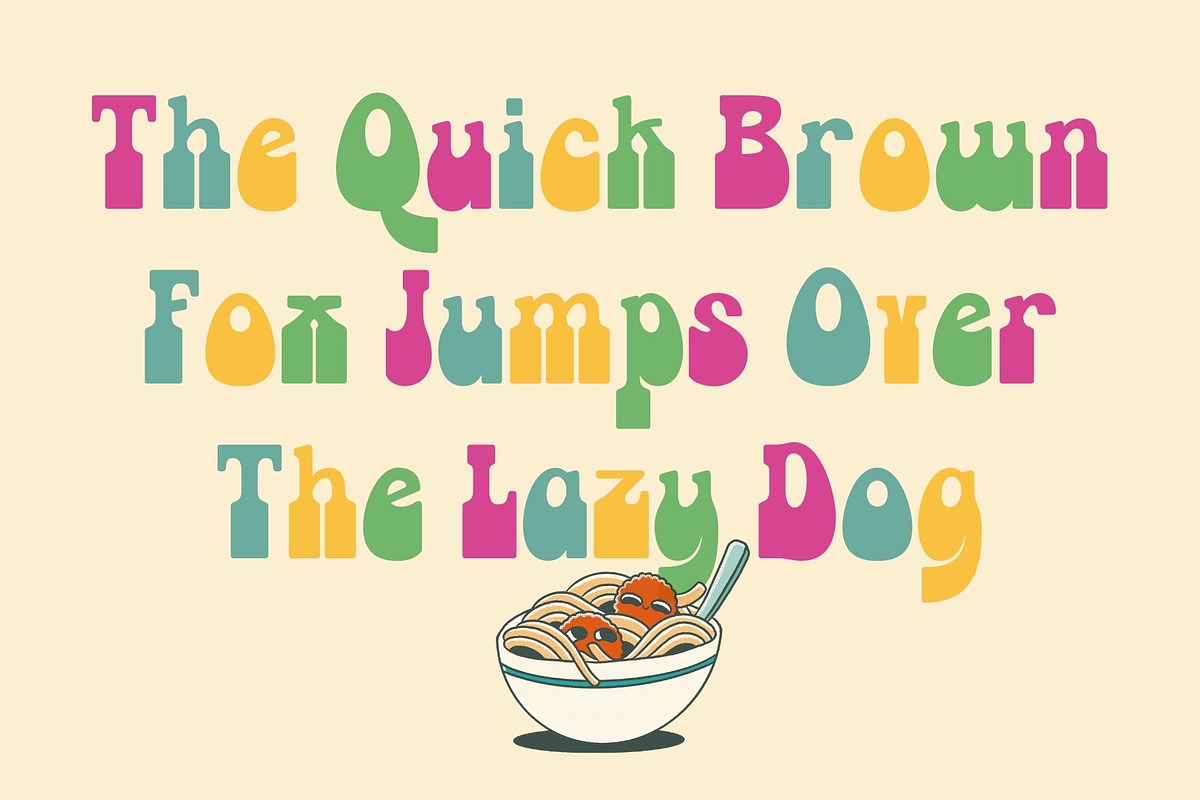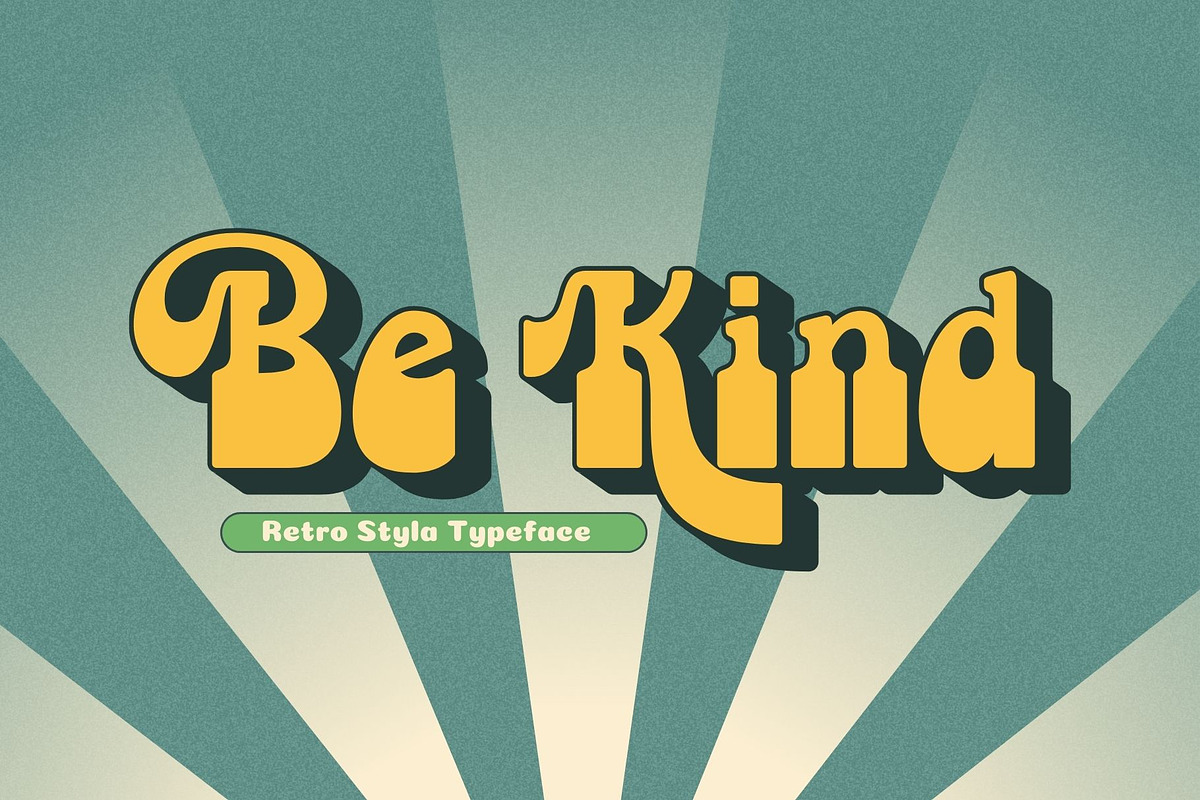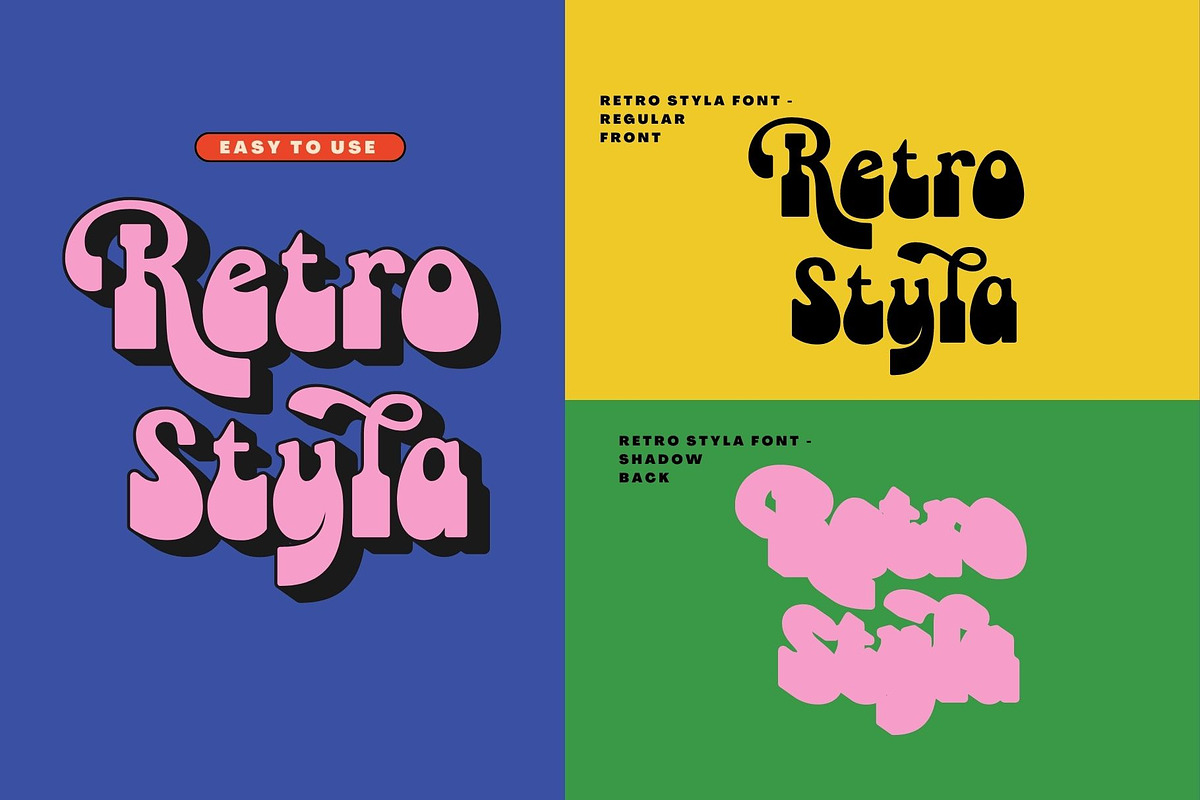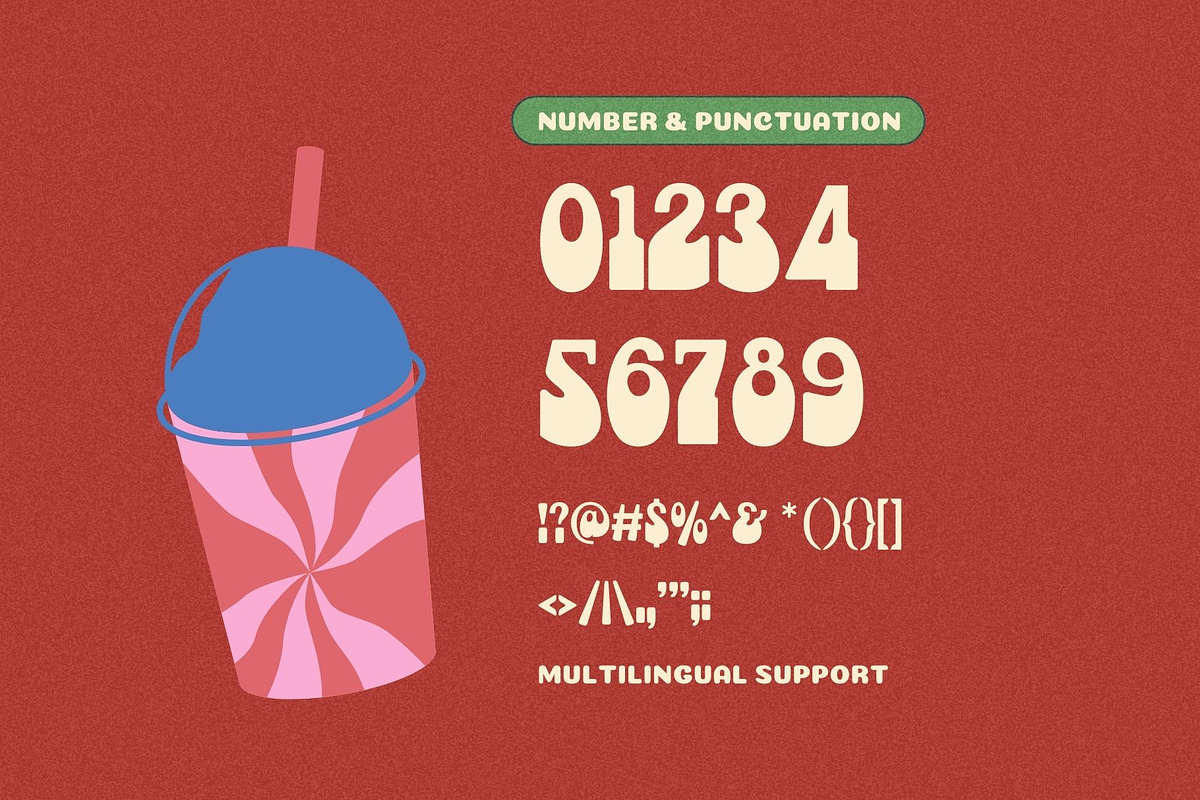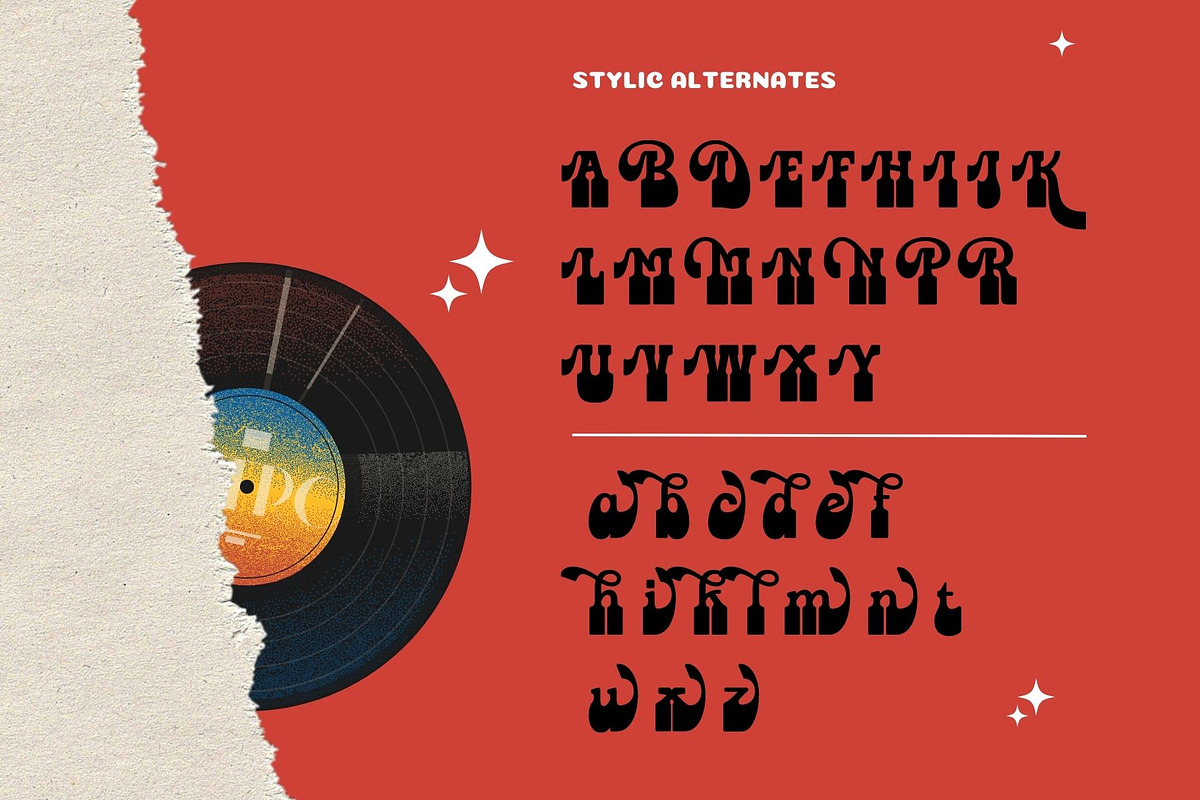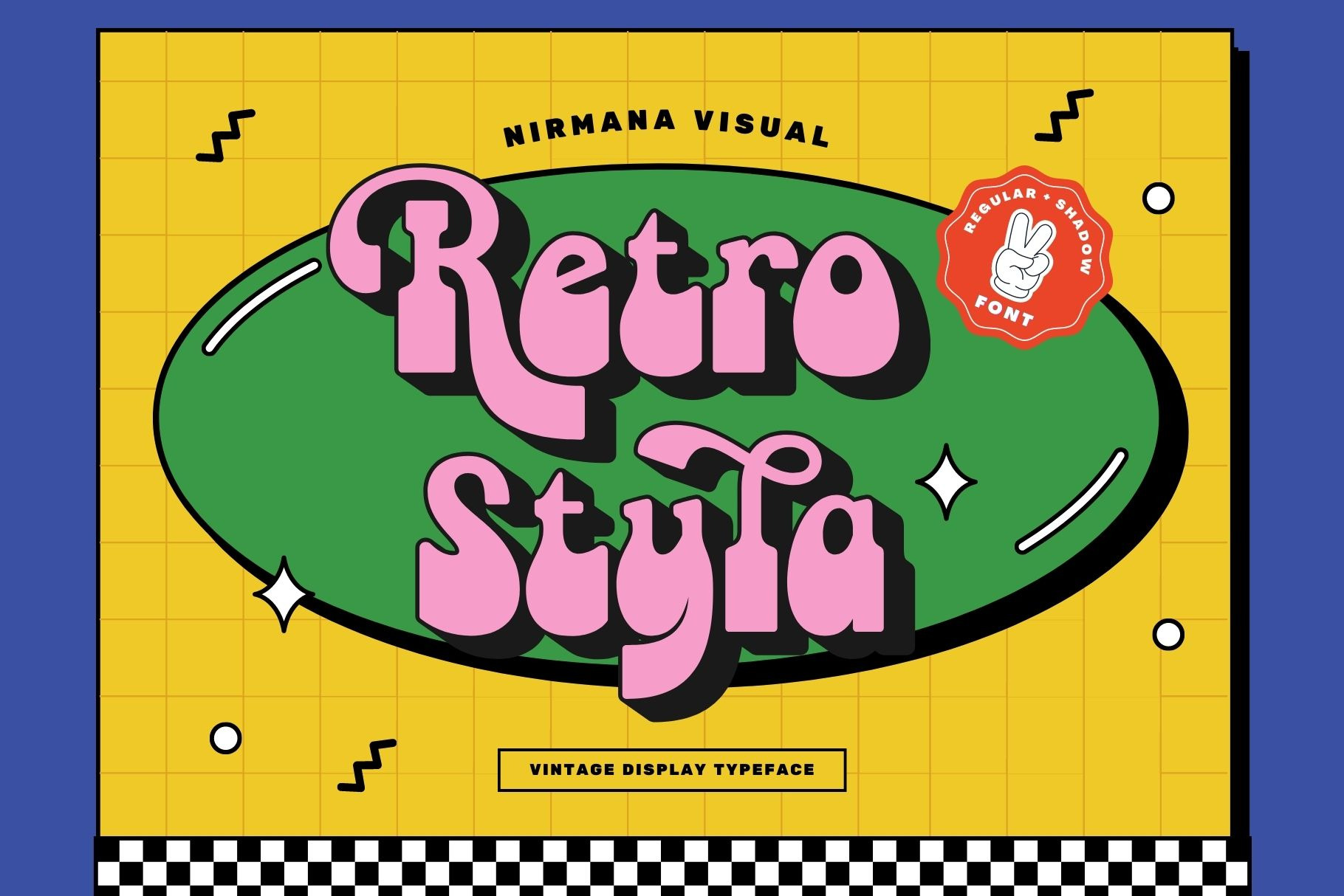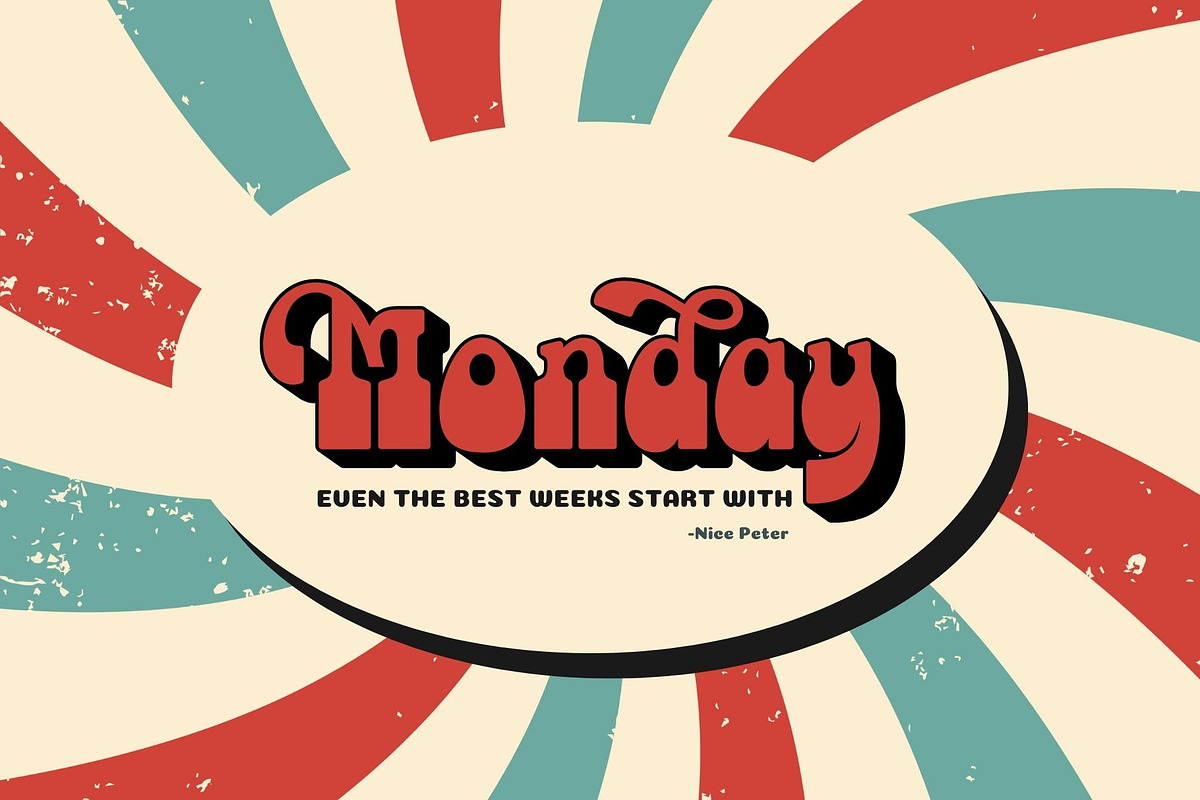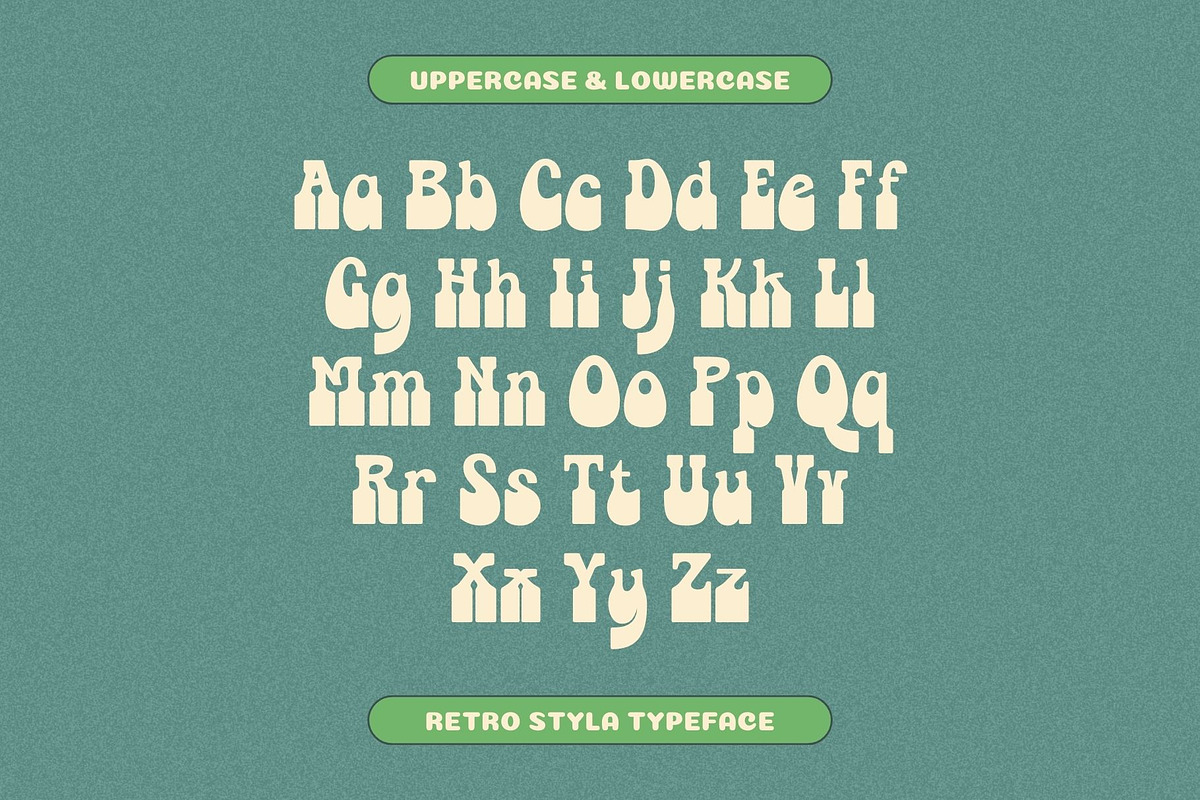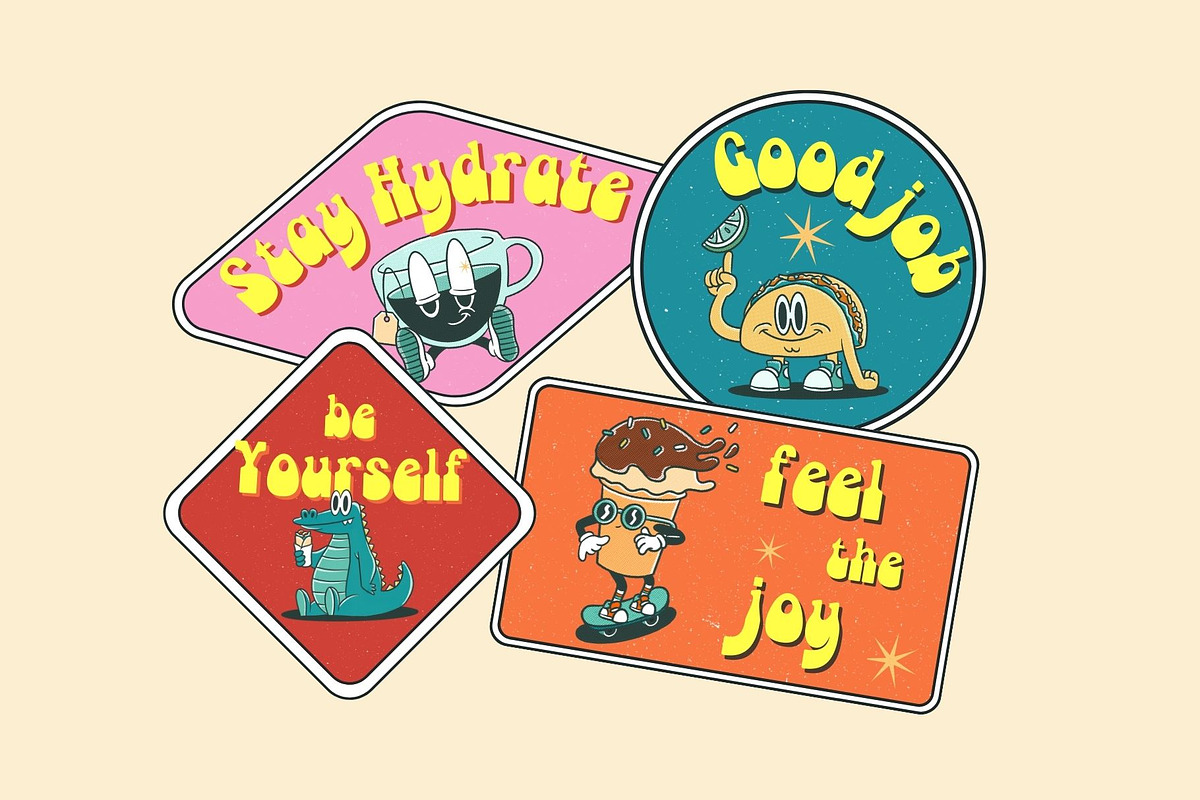
Retro Styla - Retro Font
Retro Styla , Inspired by 70s Design Era 2 Style : Regular & Shadow Retro stylae offers beautiful typographic harmony for a diversity of design projects, including logos & branding, social media posts, advertisements & product designs.